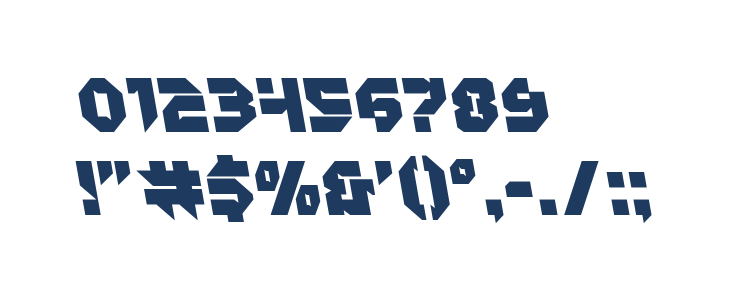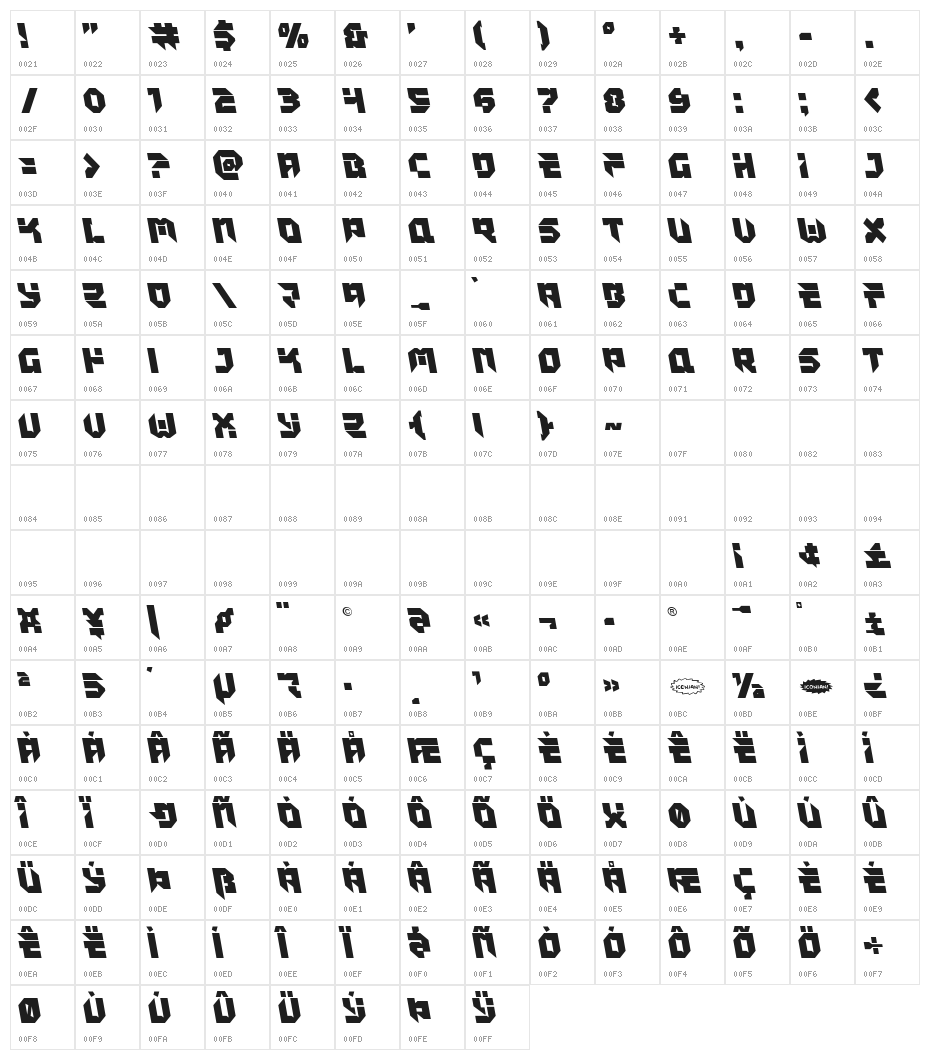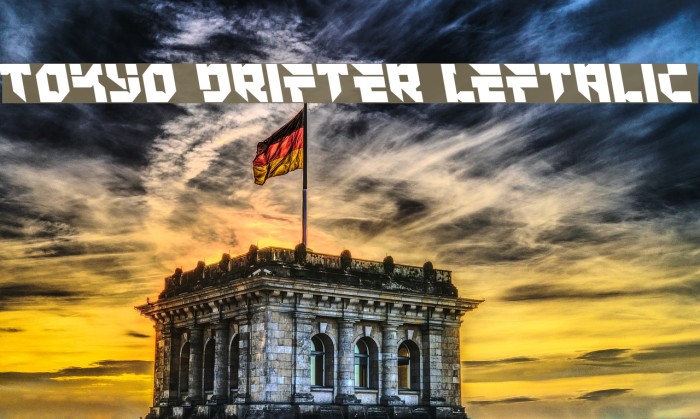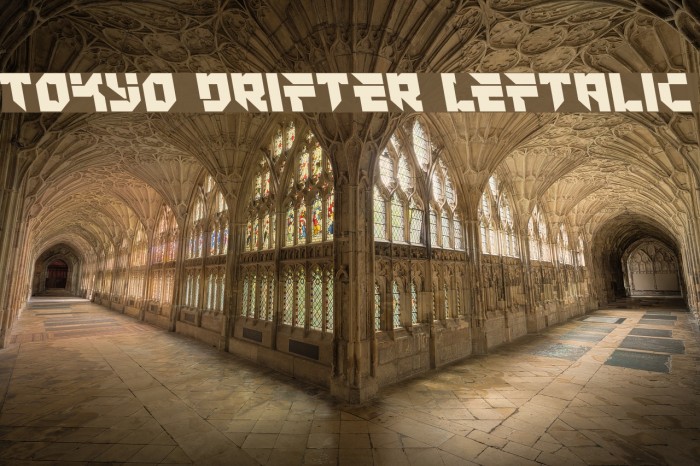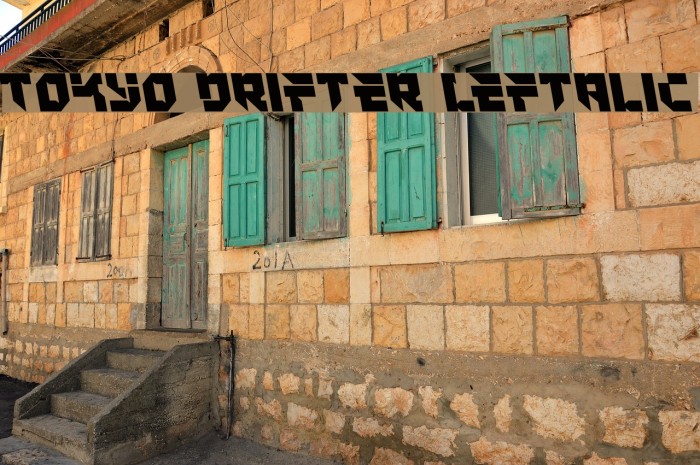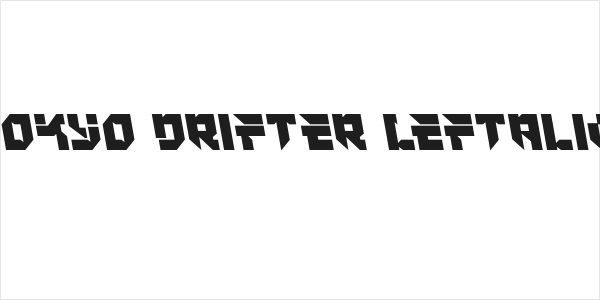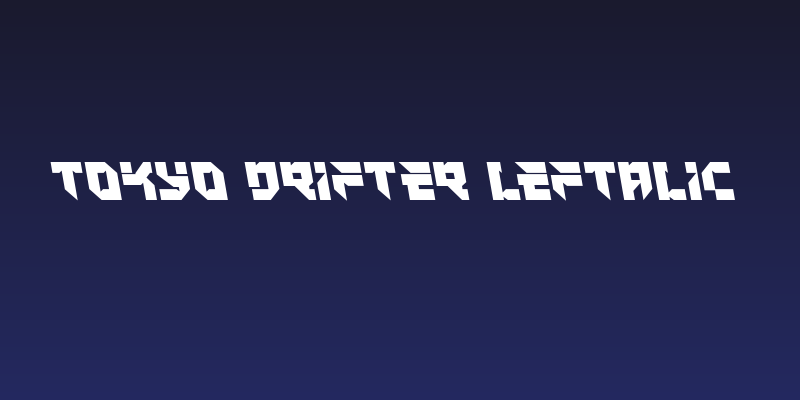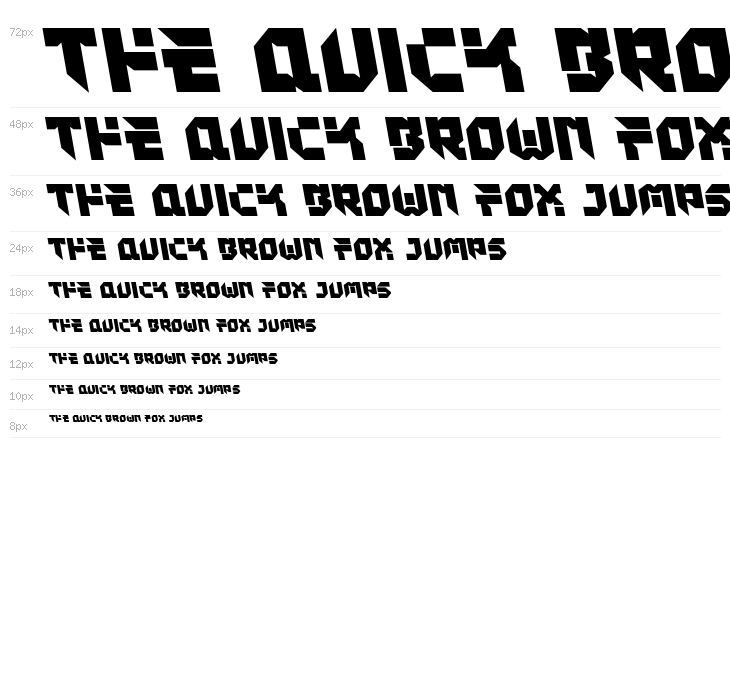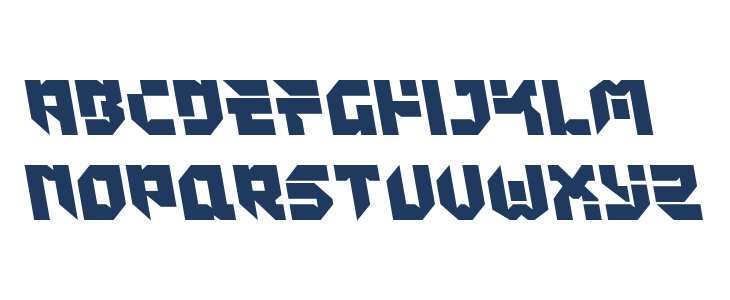
Tokyo Drifter Leftalic Font
Tokyo Drifter Leftalic Description
This font features a bold, geometric design with sharp angles and a futuristic aesthetic. The characters are constructed with a series of straight lines and angular cuts, giving them a dynamic and edgy appearance. The uppercase and lowercase letters maintain a consistent style, with a strong emphasis on horizontal and vertical strokes. Numbers and special characters follow the same design principles, ensuring uniformity across all glyphs. The font's unique style makes it stand out, ideal for projects that require a modern and striking visual impact.
| Proposed Projects | Ideal for sci-fi themed designs, video game titles, tech branding, and modern posters. |